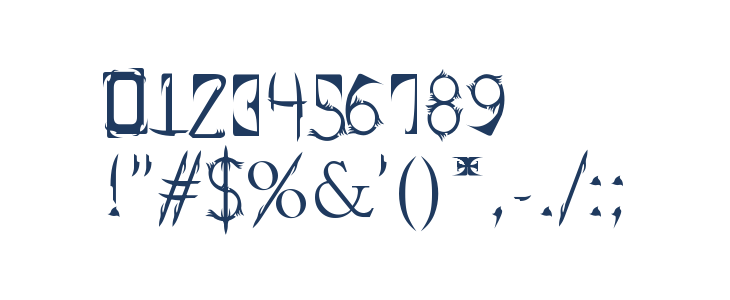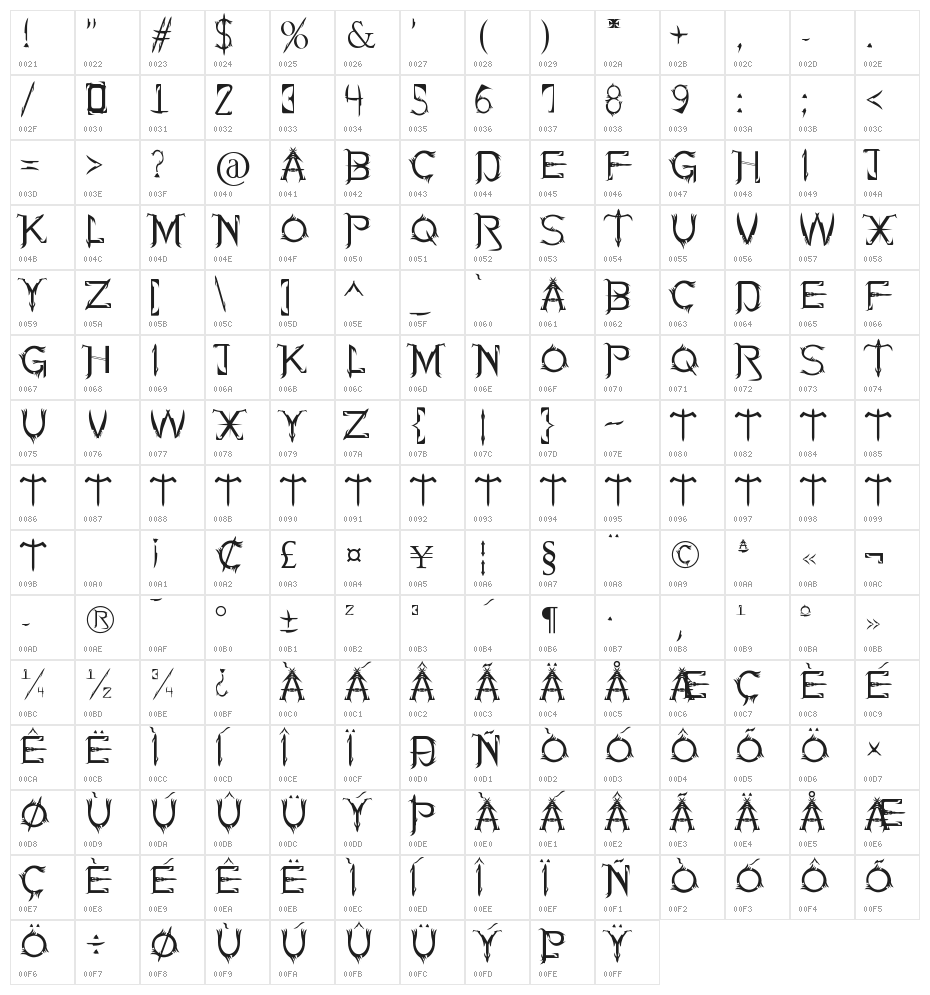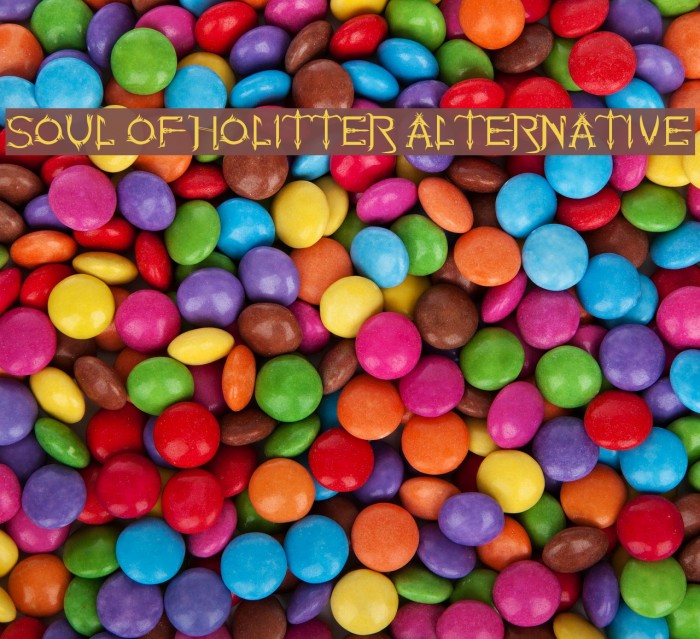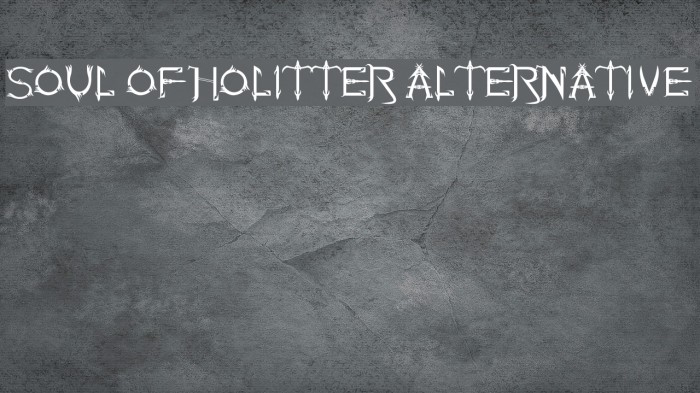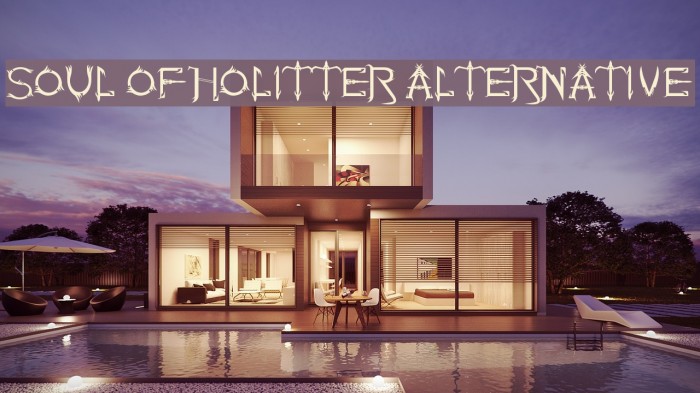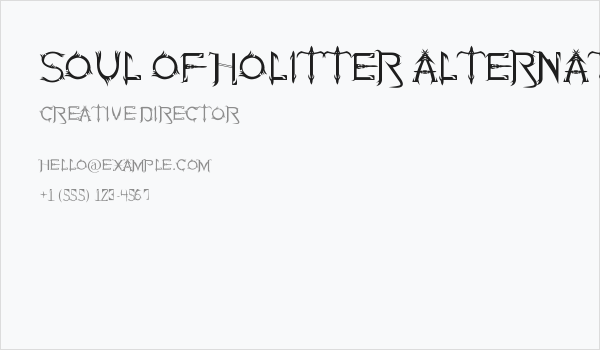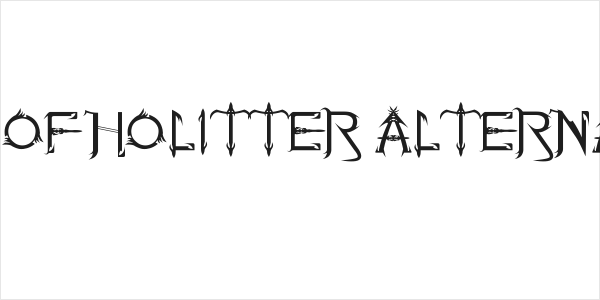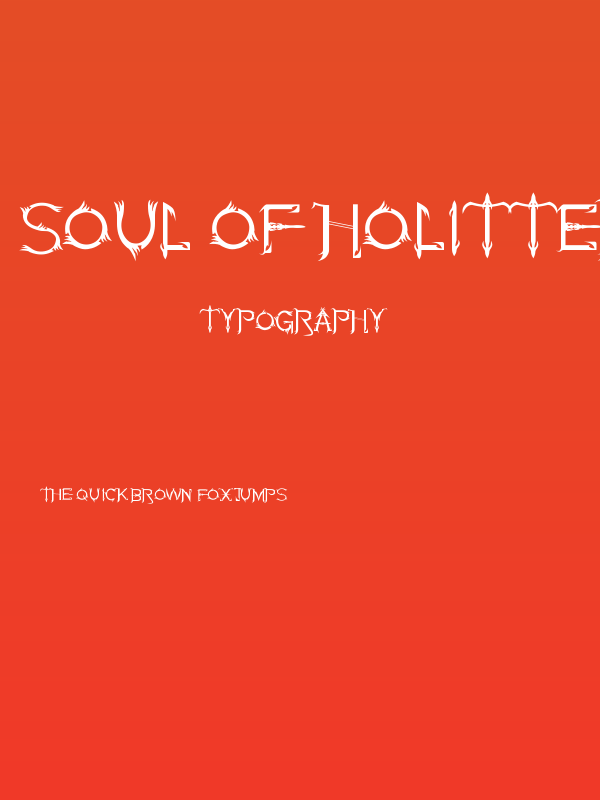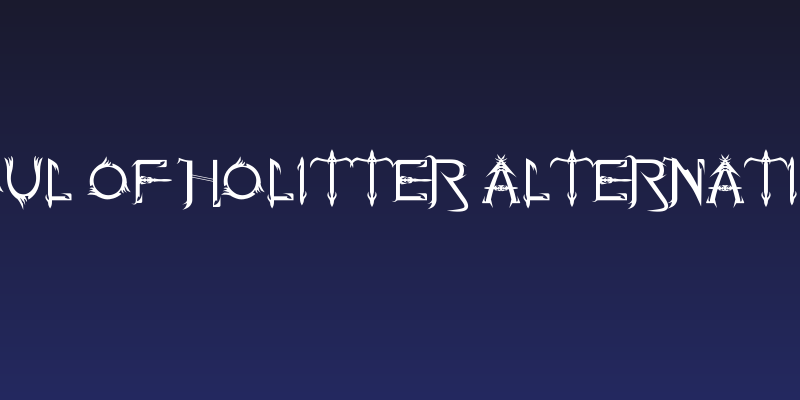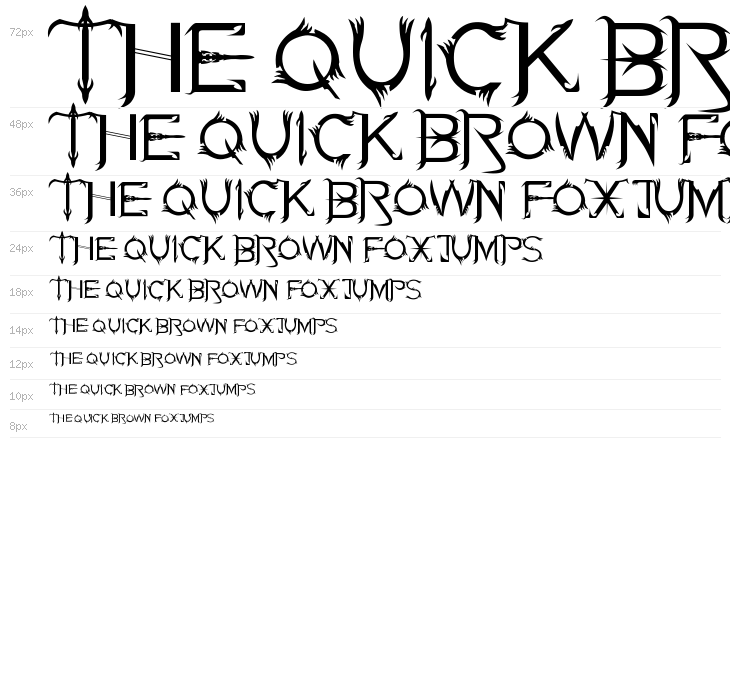
Soul Of Holitter Alternative Font
Soul Of Holitter Alternative Description
This font features a highly decorative and intricate design, characterized by sharp, angular edges and pointed serifs that give it a gothic and somewhat aggressive appearance. The letters are bold and have a unique style with embellishments that resemble thorns or spikes, adding to its dramatic and intense look. The numbers and special characters follow the same theme, maintaining consistency across the font. This font is not suitable for body text due to its complex design but can be very effective for creating eye-catching headlines or logos.
| Overall Style | Gothic, Decorative |
| Proposed Projects | Ideal for projects requiring a dramatic and intense aesthetic, such as horror-themed posters, gothic event invitations, or edgy brand logos. |